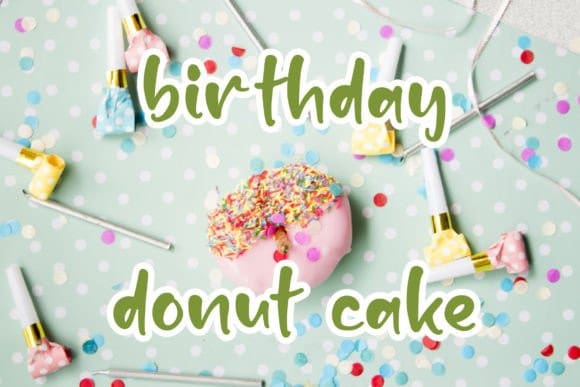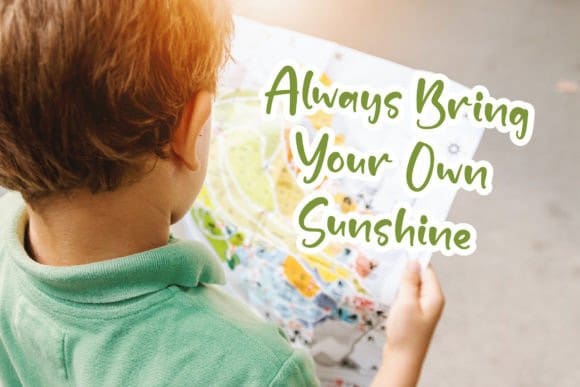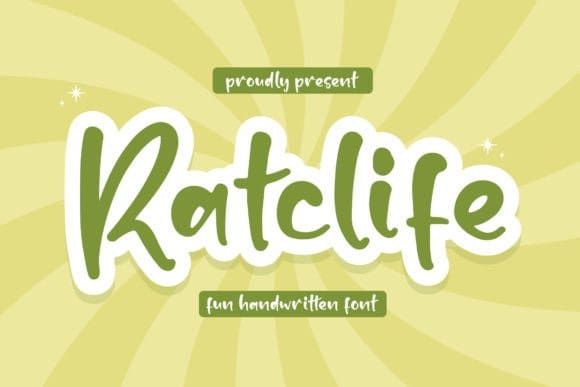
Ratclife Script Font
Ratclife Script Font is a fun and bubbly handwritten font. Whether you are using it for cartoon-related designs, children’s games, quotes, titles, brand names, book covers, posters, or just any creation that requires a touch of joy, this font is a great choice.